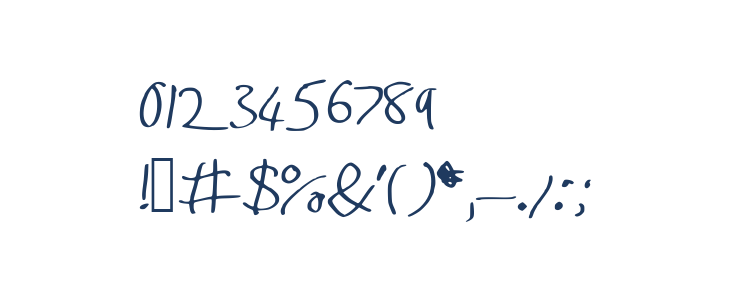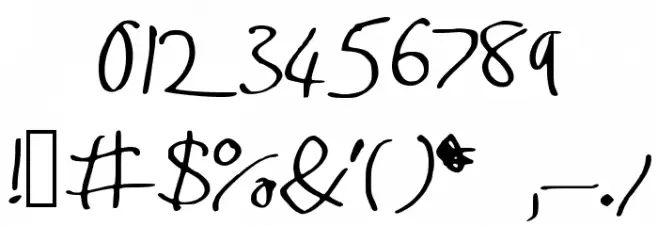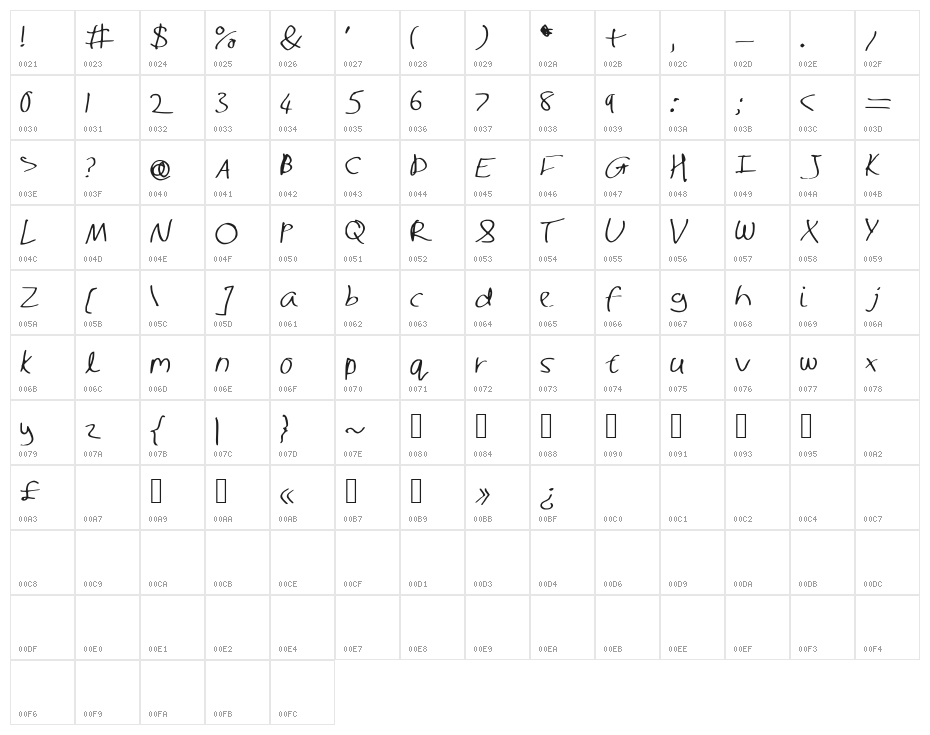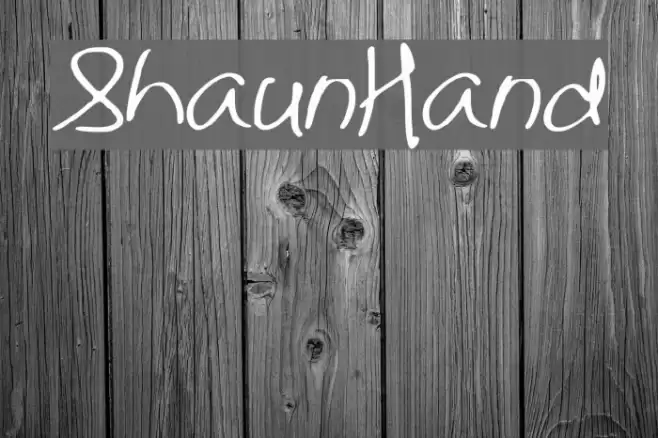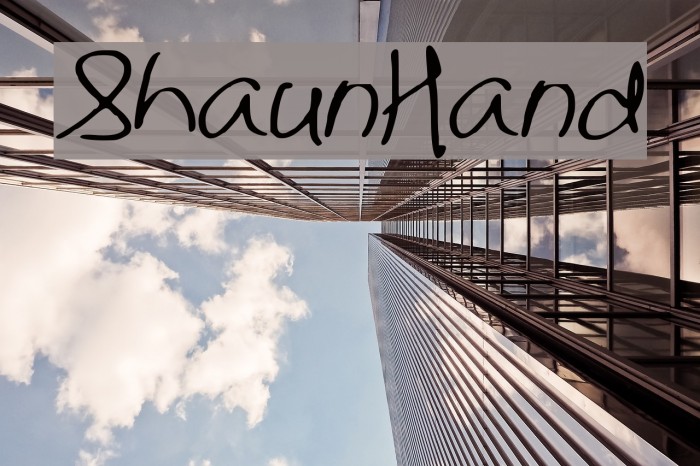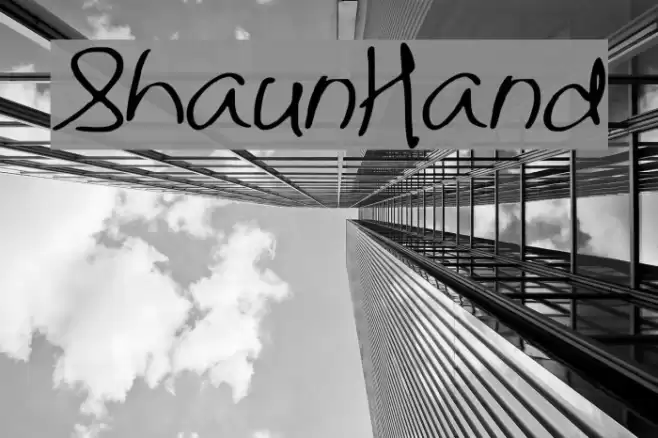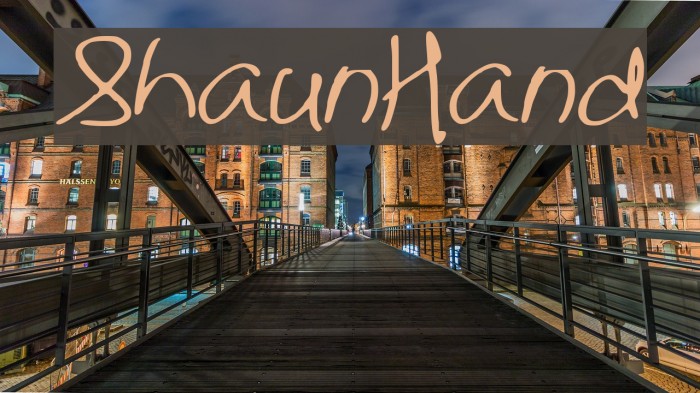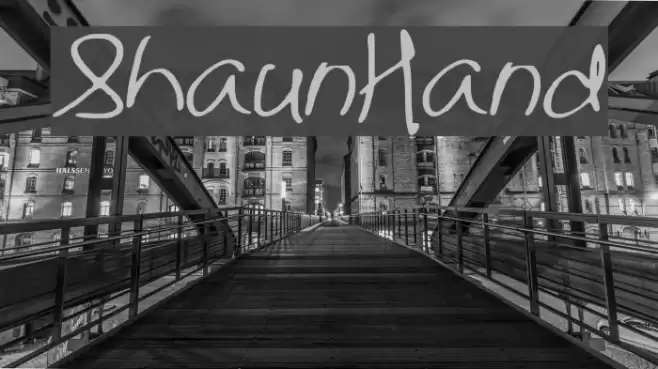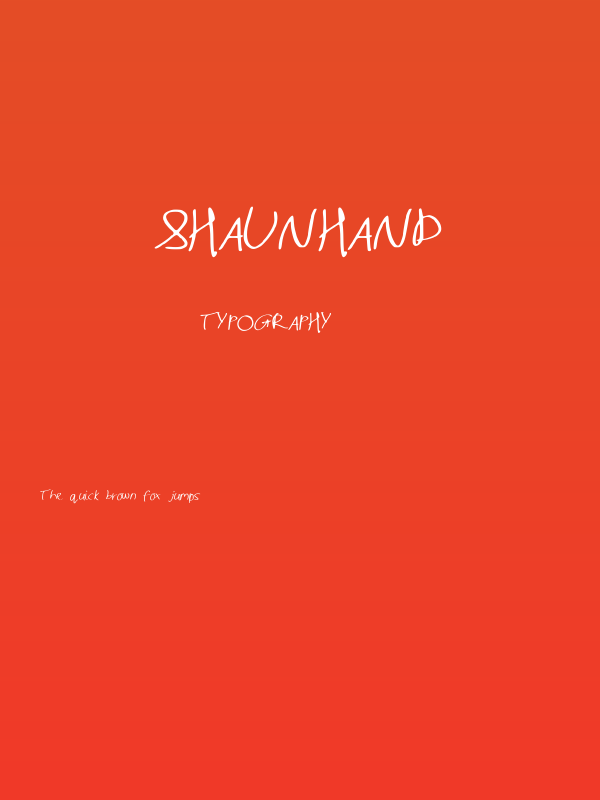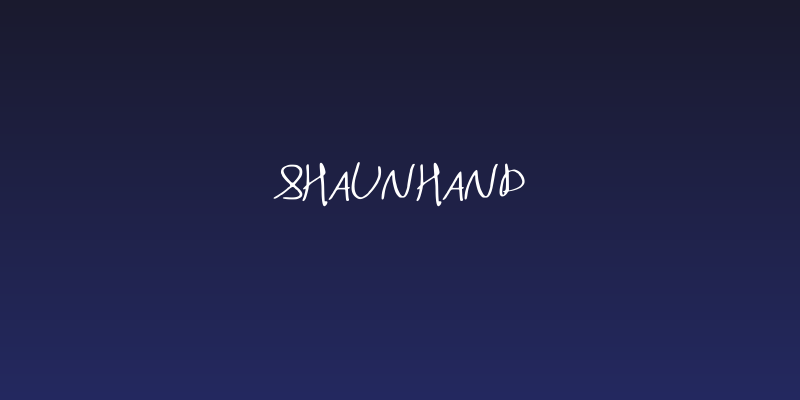
ShaunHand Font
ShaunHand Description
This font exudes a casual and playful handwritten style, characterized by its flowing and slightly irregular letterforms. The strokes are smooth and organic, mimicking the natural movement of handwriting. Each character has a unique personality, with varying heights and angles that add to the font's charm. The uppercase letters are bold and confident, while the lowercase letters maintain a friendly and approachable demeanor. Numbers and special characters are crafted with the same whimsical touch, ensuring consistency throughout the typeface. This font is perfect for projects that require a personal and informal touch, such as greeting cards, invitations, or creative branding.